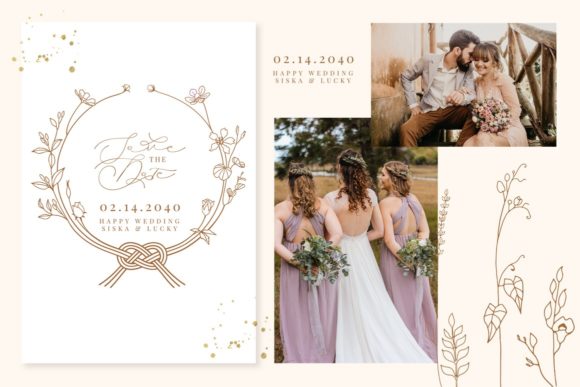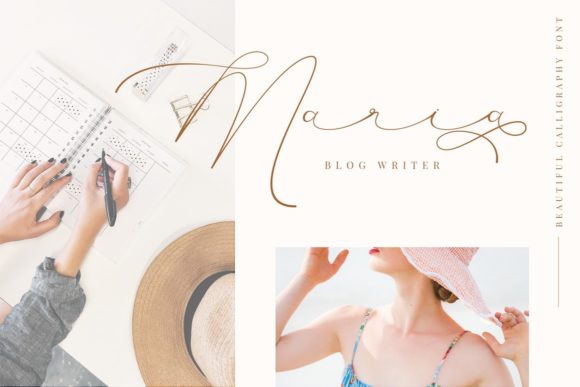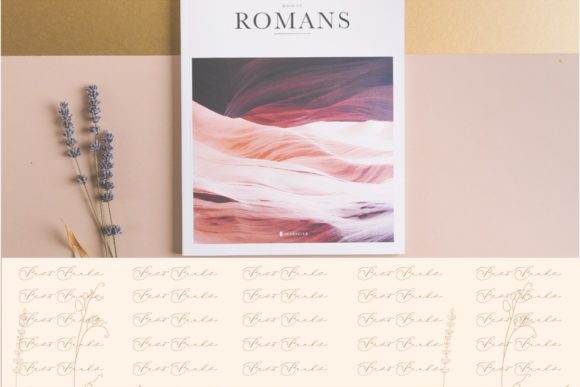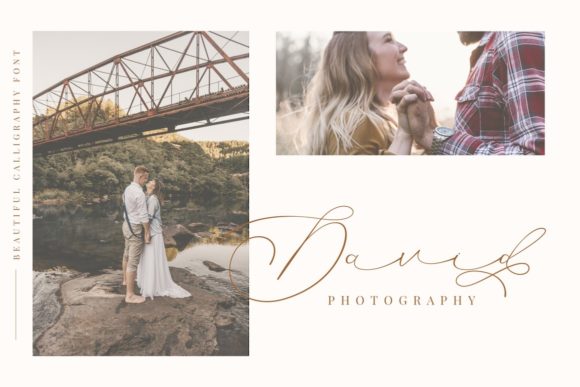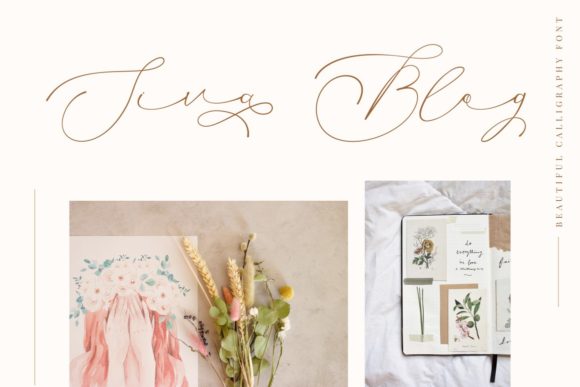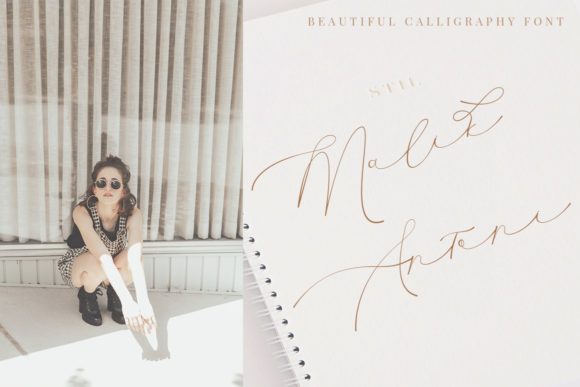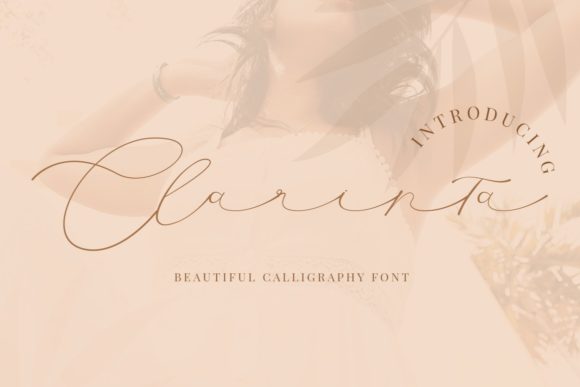
Introducing Clarinta Font: The Ultimate Delicate and Flowing Handwritten Font
Are you a designer or crafter looking for a beautiful and elegant font to elevate your creative projects? Look no further than Clarinta Font! This stunning handwritten font is perfect for adding a touch of sophistication and whimsy to a wide range of designs, from logos and stationery to wedding events, invitations, quotes, social media, websites, and more.
What Makes Clarinta Font So Special?
Clarinta Font is a delicate and flowing handwritten font that is sure to capture the hearts of designers and crafters alike. Its elegant and cursive strokes make it perfect for creating beautiful and eye-catching designs that are sure to stand out. Whether you’re looking to create a romantic and whimsical wedding invitation or a stylish and modern logo, Clarinta Font is the perfect choice.
One of the best things about Clarinta Font is its versatility. It’s perfect for a wide range of design projects, including:
- Logos: Add a touch of elegance and sophistication to your logo with Clarinta Font.
- Stationery: Create beautiful and stylish stationery, including letterheads, business cards, and more.
- Wedding Events: Make your wedding invitations, programs, and other stationery truly special with Clarinta Font.
- Invitations: Create stunning invitations for birthdays, baby showers, and other special occasions.
- Quotes: Add a touch of elegance and whimsy to your quotes and social media posts.
- Social Media: Use Clarinta Font to create beautiful and eye-catching social media graphics.
- Websites: Add a touch of sophistication and elegance to your website with Clarinta Font.
Another great feature of Clarinta Font is that it’s PUA encoded. This means that you can access all of the glyphs and swashes with ease, making it simple to customize your designs and make them truly unique. With PUA encoding, you can:
- Access a wide range of glyphs and swashes to add a touch of elegance and whimsy to your designs.
- Easily customize your designs to make them truly unique.
- Save time and effort by having access to all of the glyphs and swashes you need in one place.
Why Choose Clarinta Font?
So why choose Clarinta Font for your design projects? Here are just a few reasons:
- Unique and elegant design that’s sure to stand out.
- Perfect for a wide range of design projects.
- PUA encoded for easy access to glyphs and swashes.
- Easy to use and customize.
- Perfect for designers and crafters of all skill levels.
Whether you’re a seasoned designer or a crafter just starting out, Clarinta Font is a must-have addition to your font collection. Its unique and elegant design, ease of use, and versatility make it the perfect choice for anyone looking to elevate their design projects and create something truly special.